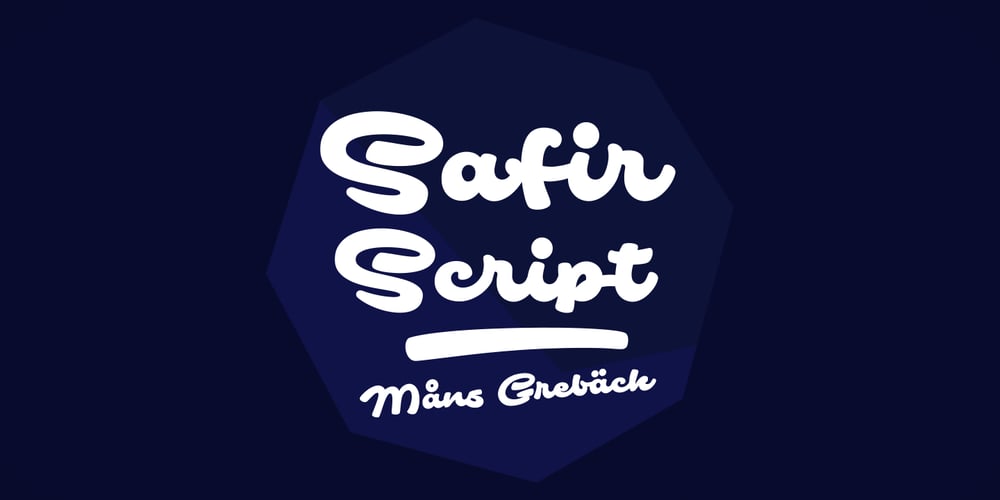
Safir Script
Safir Script font
Safir Script Font Family was designed by Måns Grebäck and published by Mans Greback. Safir Script contains 1 styles and family package options. Safir Script is a happy typeface in high quality. It has a vintage look, optimized for logos, titles and slogans. The font supports hundreds of languages. It contains contextual alternates, swashes and ligatures. Write % followed by a number (0-9) to make swashes! Example: Safir%1